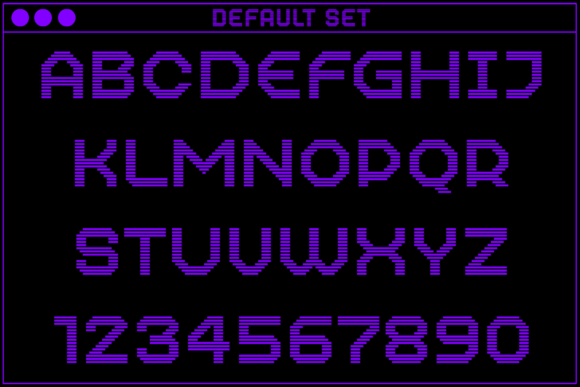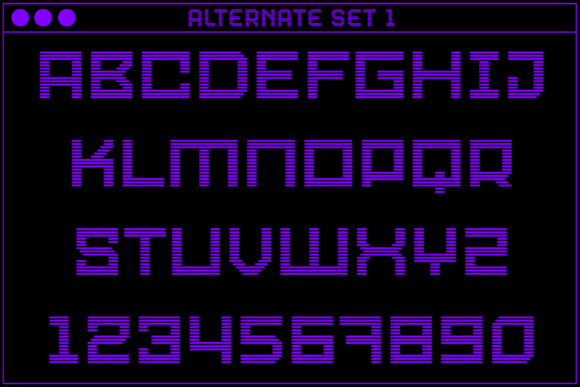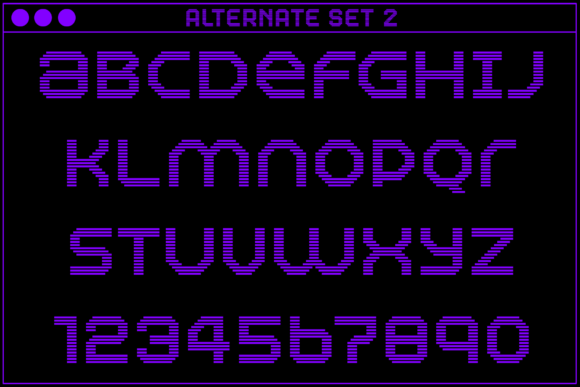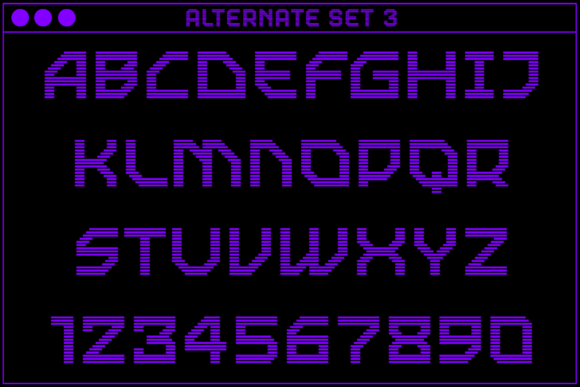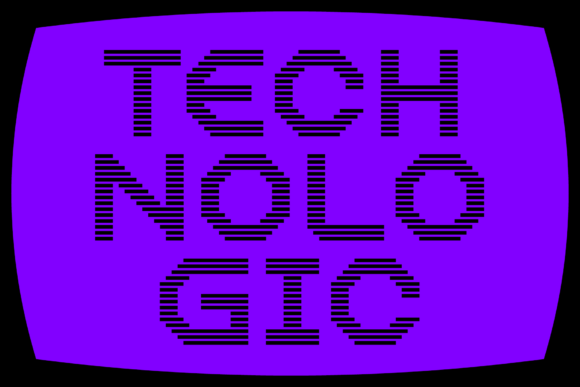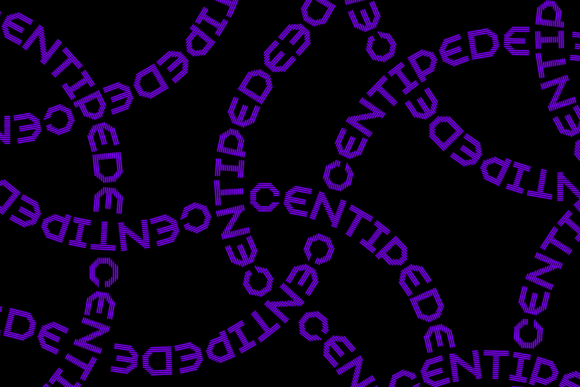
Discovering the Perfect Pixelated Font for Your Creative Project
As a designer, there’s nothing quite like the thrill of stumbling upon a font that perfectly captures the essence of your creative vision. For me, it was a late-night brainstorming session, surrounded by scattered sketches and half-finished designs, when I discovered the MultiType Rows Wide Font. Its unique, pixelated display font style was like a breath of fresh air, and I knew I had to incorporate it into my project.
With its retro charm and trendy twist, MultiType Rows Wide Font is a game-changer for designers looking to add a touch of personality to their designs. This high-quality font is a valuable resource for any creative project, and its transparent background makes it easy to use in a variety of design settings. Whether you’re working on a new logo, poster, or website, MultiType Rows Wide Font is sure to elevate your design to the next level.
Introduction to MultiType Rows Wide Font
Key Features of MultiType Rows Wide Font
- MultiType Rows Wide Font is a high-quality design resource ideal for creative projects, featuring a unique combination of modern and vintage elements.
- The font family includes a wide range of characters, including uppercase and lowercase letters, numbers, and punctuation, making it suitable for both short and long texts.
- MultiType Rows Wide Font features a transparent background, allowing for easy layering and customization in design projects.
- The font size is scalable, making it suitable for use in various design contexts, from small text to large headings.
- With a resolution of 1024 x 1024 pixels, the font is optimized for high-quality display on various devices and screens.
- The font’s wide format allows for easy readability and makes it an excellent choice for creative projects that require a unique and eye-catching design element.
Honest Review: MultiType Rows Wide Font
As a designer, I’m always on the lookout for high-quality design resources to elevate my creative projects. The MultiType Rows Wide Font is one such resource that caught my attention. I downloaded it for free and was excited to see how it would perform.
- ✨ The font is highly versatile and can be used for a wide range of creative projects, from branding to typography-focused designs.
- ✨ The transparent background makes it easy to layer and blend with other design elements.
- ⚠️ The font may not be as customizable as some other design resources, which could be a limitation for designers who like to fine-tune their fonts.
- ⚠️ The font may not be suitable for small text sizes, as it can become difficult to read.
Overall, I’m impressed with the MultiType Rows Wide Font. It’s a high-quality design resource that can add a lot of value to your creative projects. While it may have some limitations, it’s definitely worth checking out for designers who are looking for a versatile and easy-to-use font.
Designing with MultiType Rows Wide Font
MultiType Rows Wide Font is a versatile design resource ideal for creative projects. To utilize this font effectively, follow these steps:
In Canva, navigate to the ‘Elements’ tab and search for ‘MultiType Rows Wide Font’. Select the font and customize it to fit your design needs. You can use this font in a variety of creative projects, such as social media graphics, presentations, and posters.
Getting the Most Out of MultiType Rows Wide Font
To get the most out of MultiType Rows Wide Font, use it on a transparent background to create a high-quality design. You can also experiment with different font sizes, colors, and alignments to add visual interest to your project.
MultiType Rows Wide Font is ideal for use in creative projects, such as:
- Presentation slides
- Reports and documents